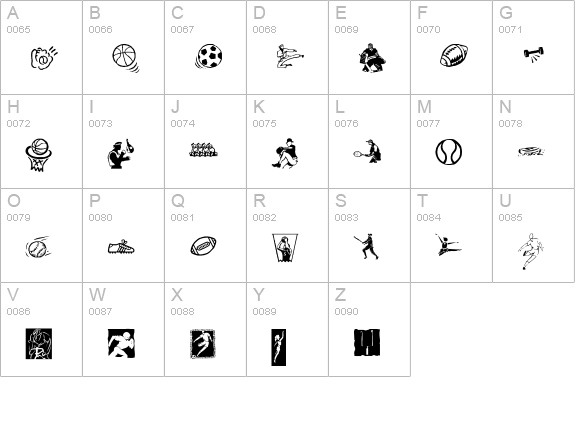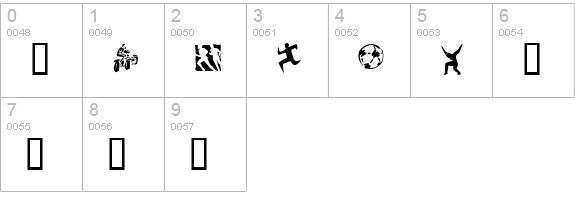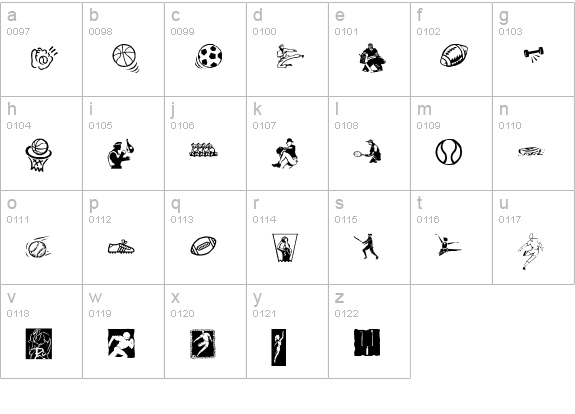
KR Sports Dings Font Details
KR Sports Dings font is a dynamic and versatile typeface perfect for adding a sporty touch to your designs. With its bold and energetic characters, this font is ideal for sports-related projects such as posters, logos, team jerseys, and more. The unique dingbat icons included in the font set add an extra flair to your designs, making them stand out from the crowd. Best of all, KR Sports Dings font is available for free download at FontsMarket.com. This means you can easily access and use this font in your projects without any cost. Whether you're a graphic designer, sports enthusiast, or just looking to add some excitement to your designs, KR Sports Dings font is a must-have in your font collection. Download it today and start creating eye-catching designs that capture the spirit of sports and athleticism.